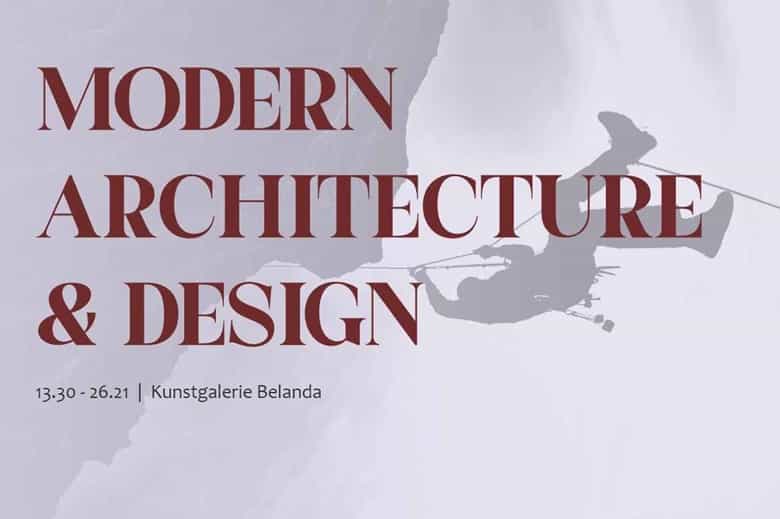
Audie is a modern serif font. Consisting of styles designed for strong headlines, this font is suitable for use in different areas, from banners and posters, newspapers and magazines, logos and brand identities, to movie and game titles. If you are looking for a modern serif style that can be effective in branding, you can easily use this font.